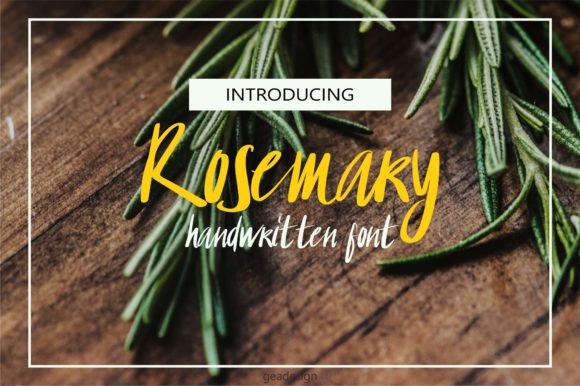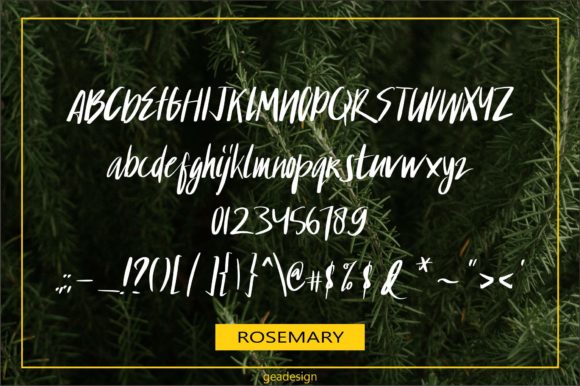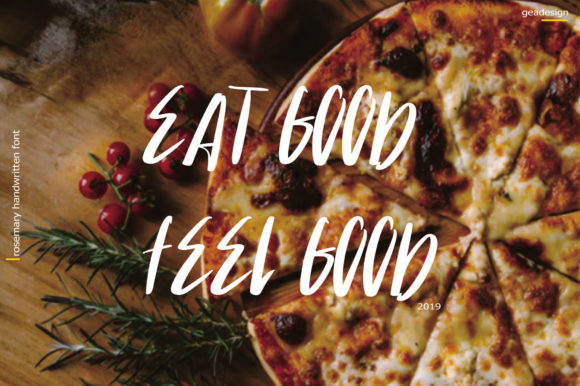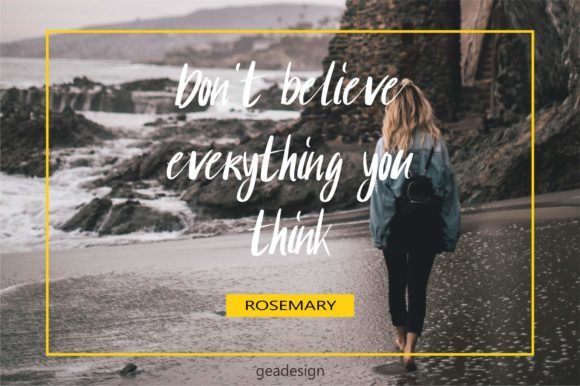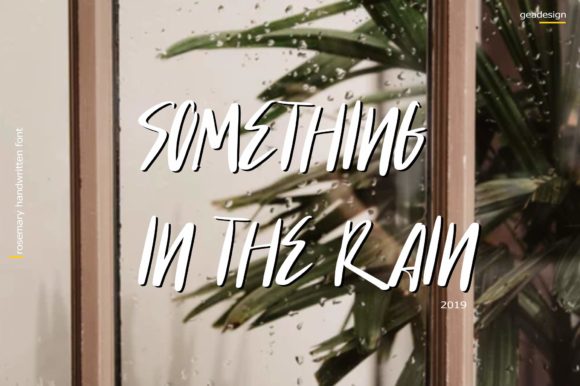
Rosemary Font
About Rosemary Font
The Rosemary is an amazing handwritten font. it’s perfect to signatures, posters, and every other design which needs to stand out!